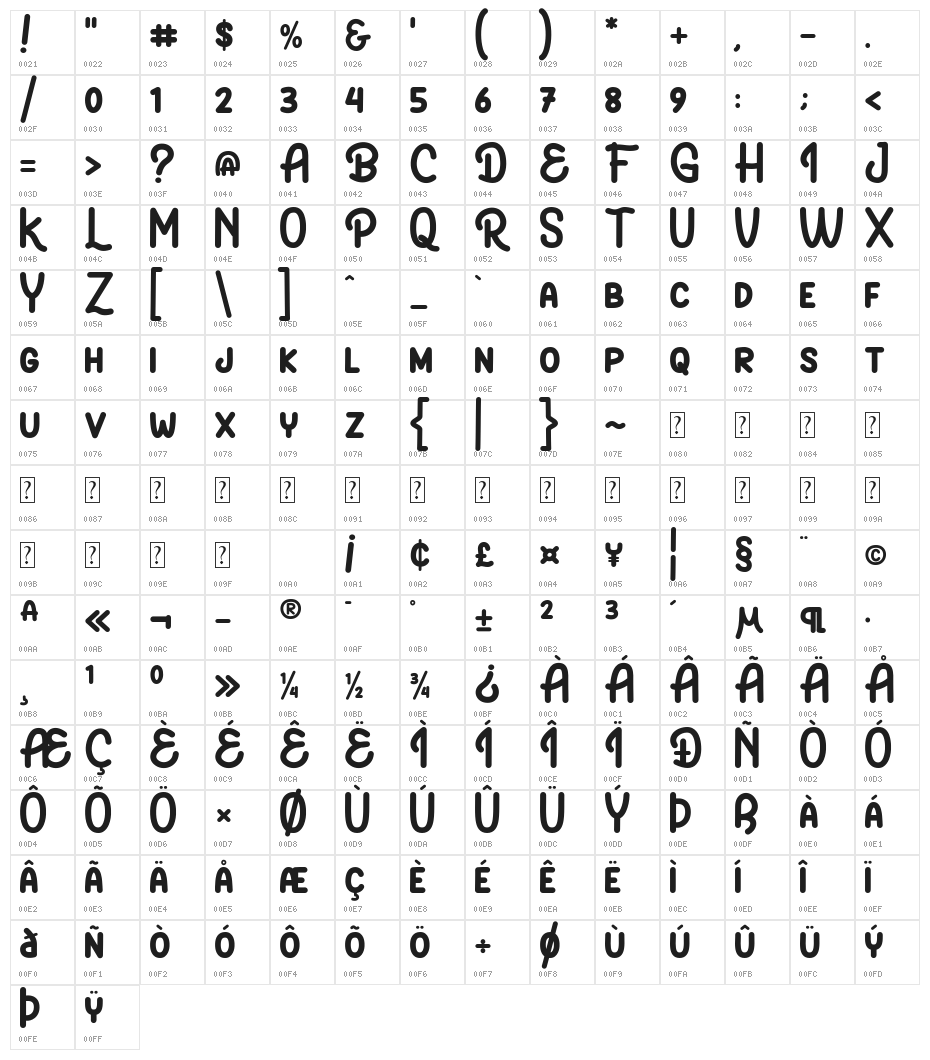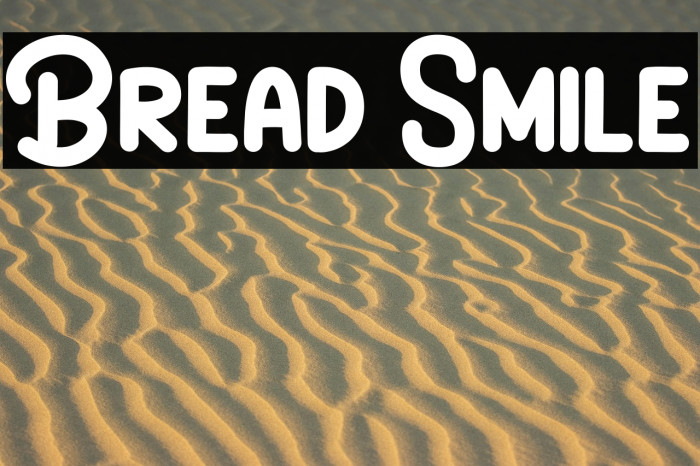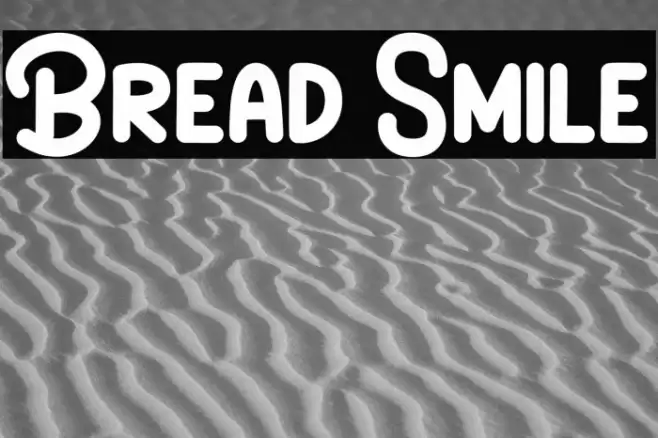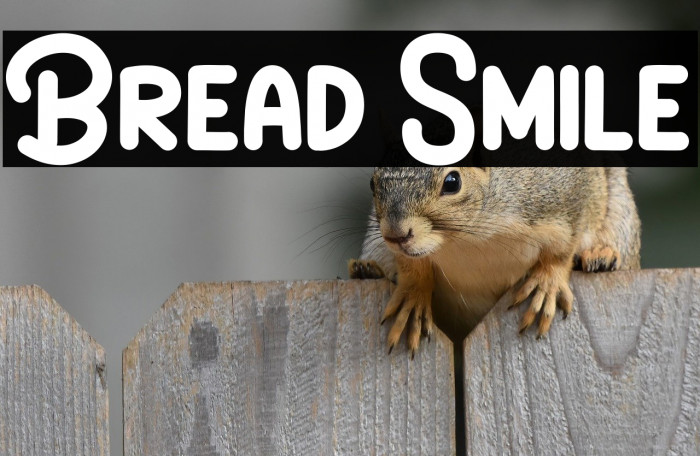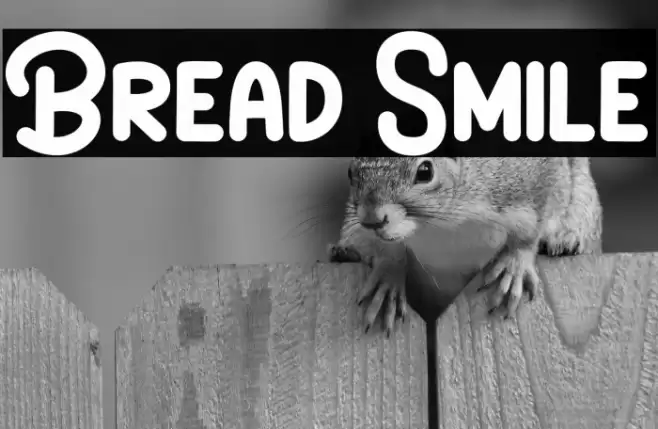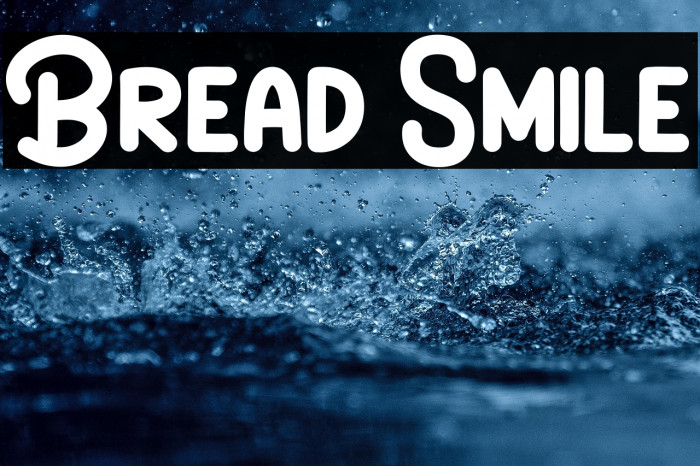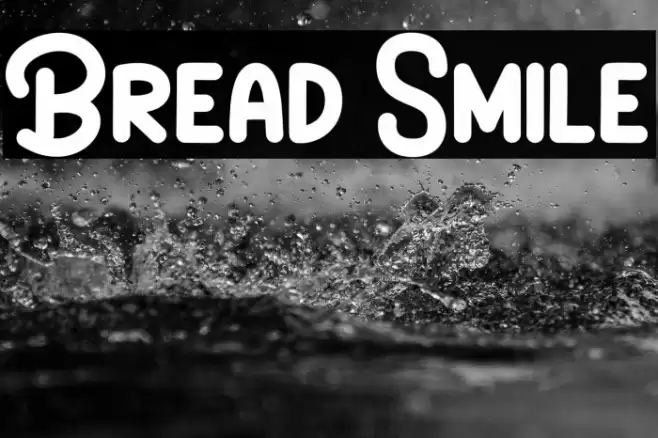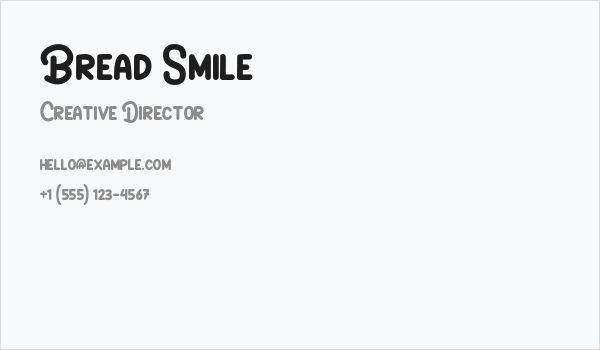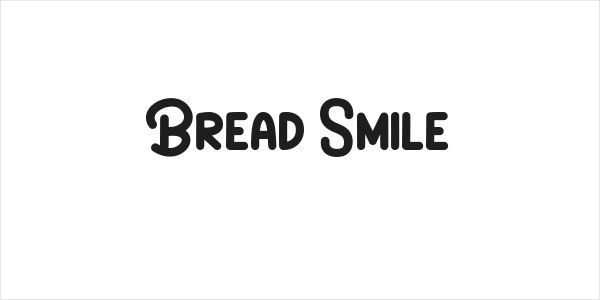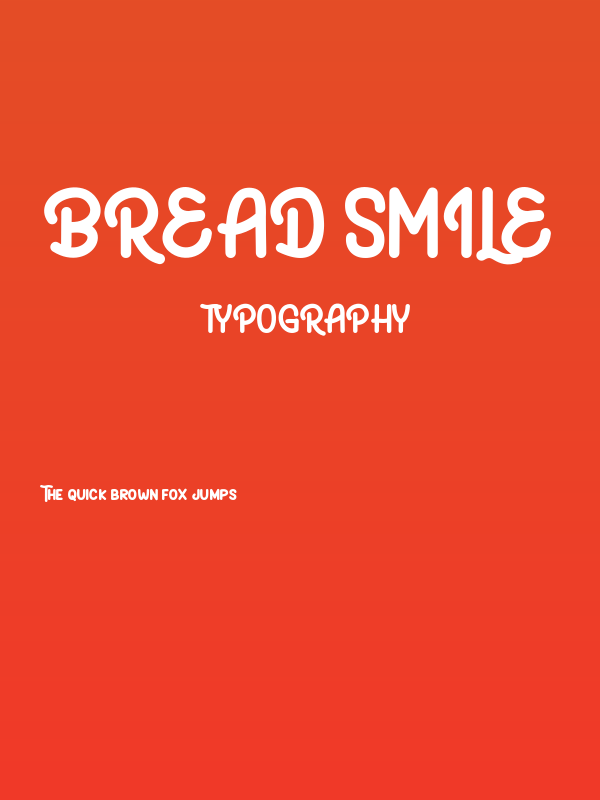
Bread Smile Font
Bread Smile Description
This playful and bold font features a rounded, bubbly style that exudes a sense of fun and friendliness. The uppercase and lowercase letters are designed with smooth curves and a consistent stroke width, giving it a cohesive and approachable appearance. The numbers and special characters maintain the same playful aesthetic, making it versatile for various uses. Its boldness ensures high visibility, making it suitable for eye-catching designs.
| Proposed Projects | Ideal for children's books, playful branding, party invitations, and cheerful posters. |